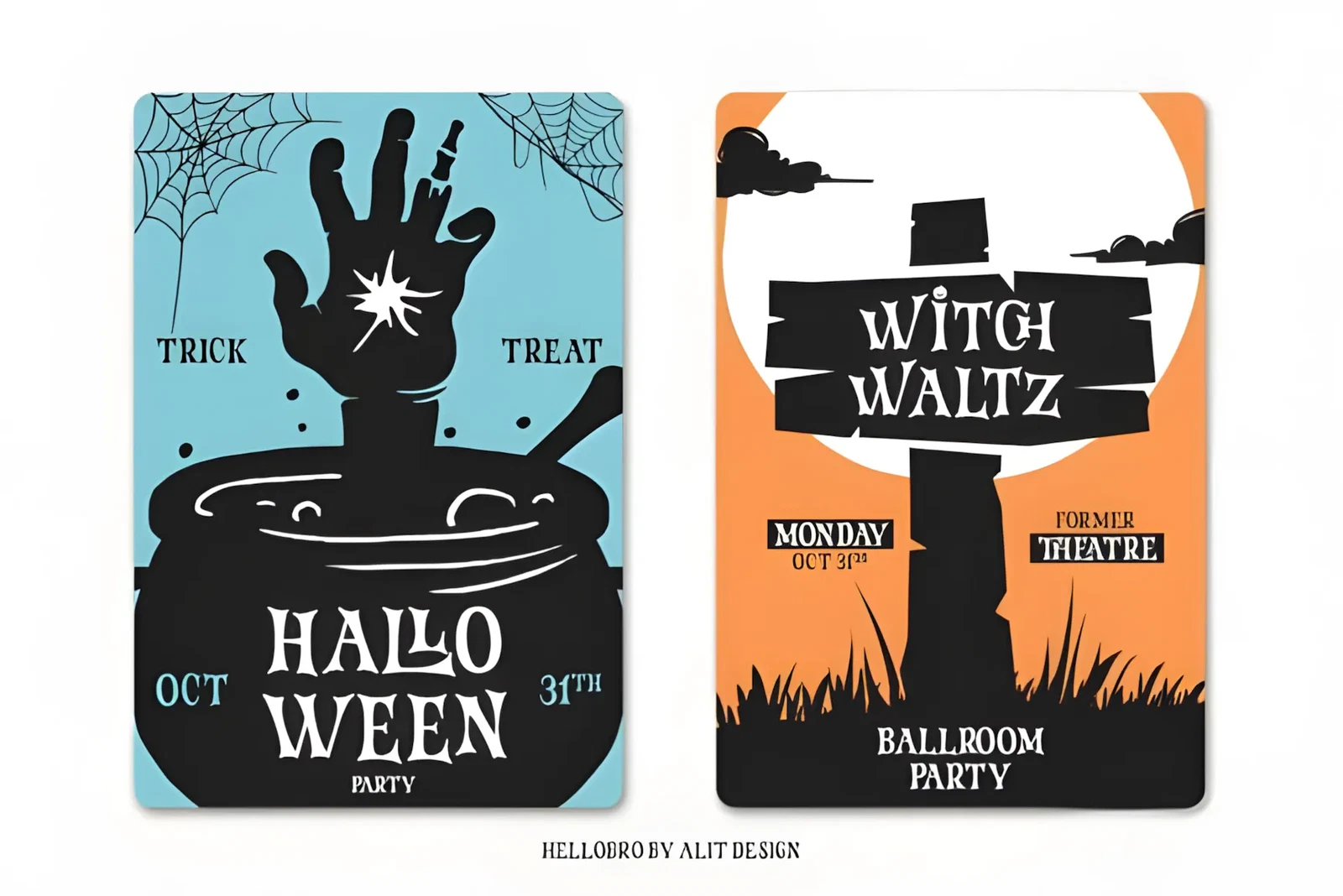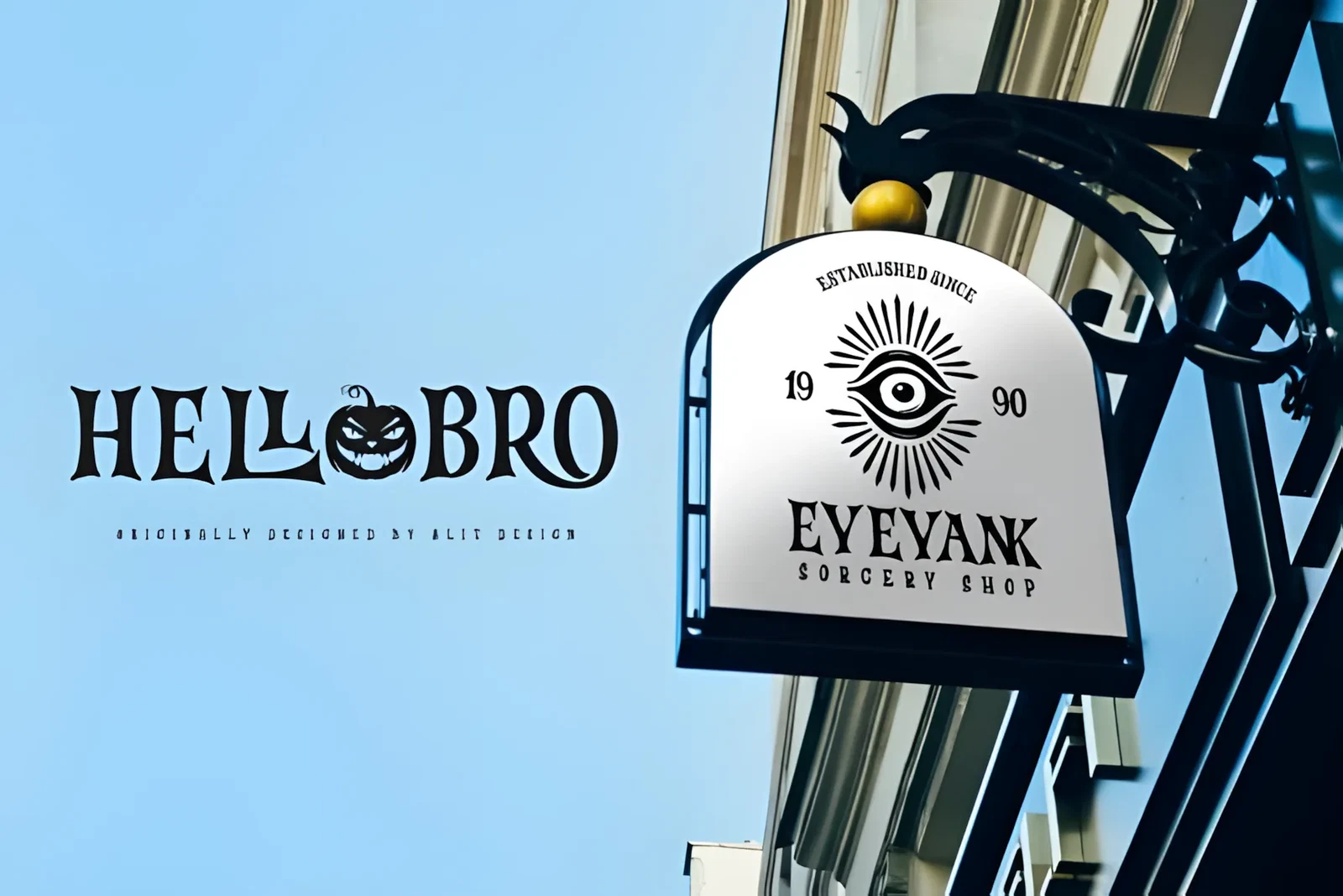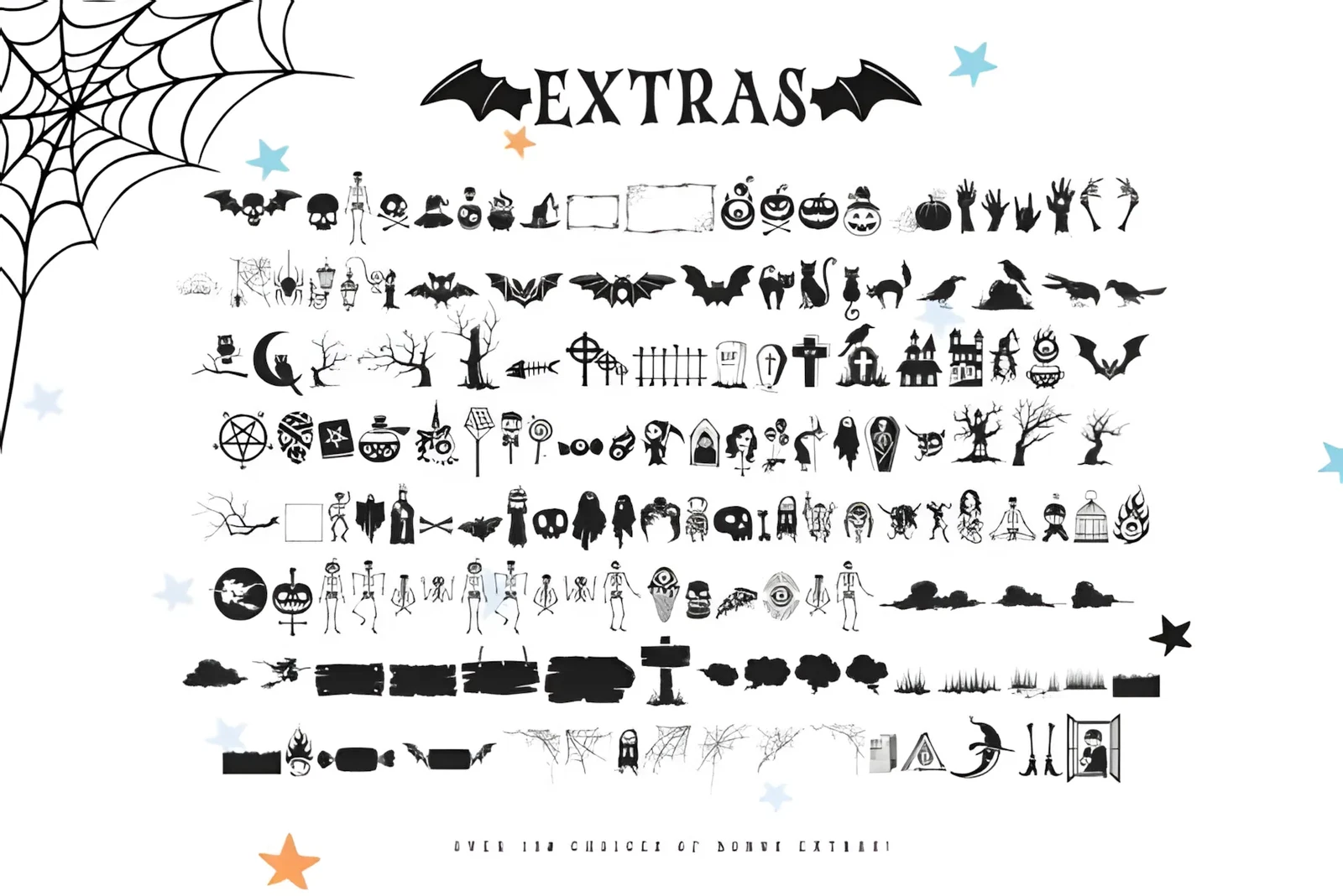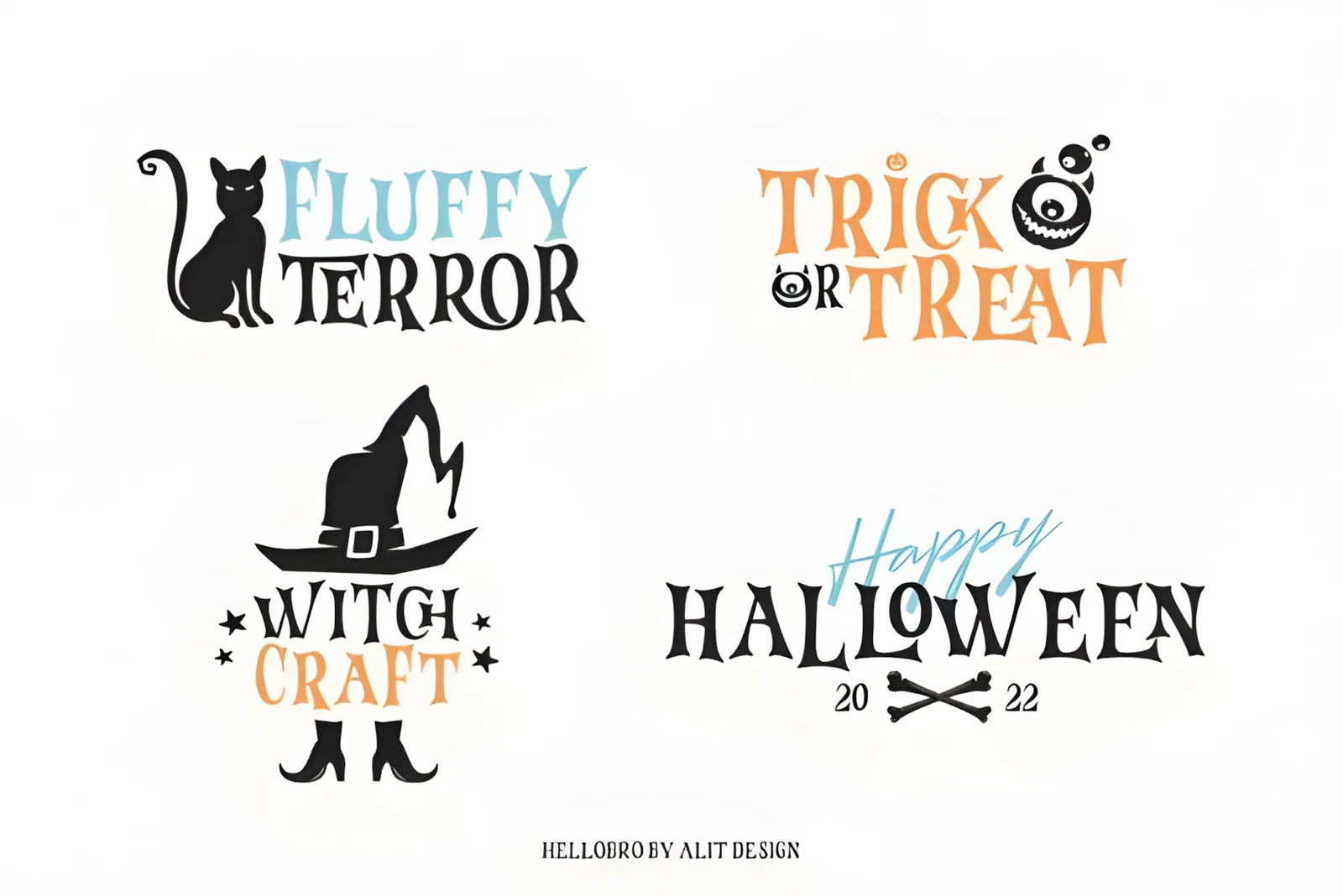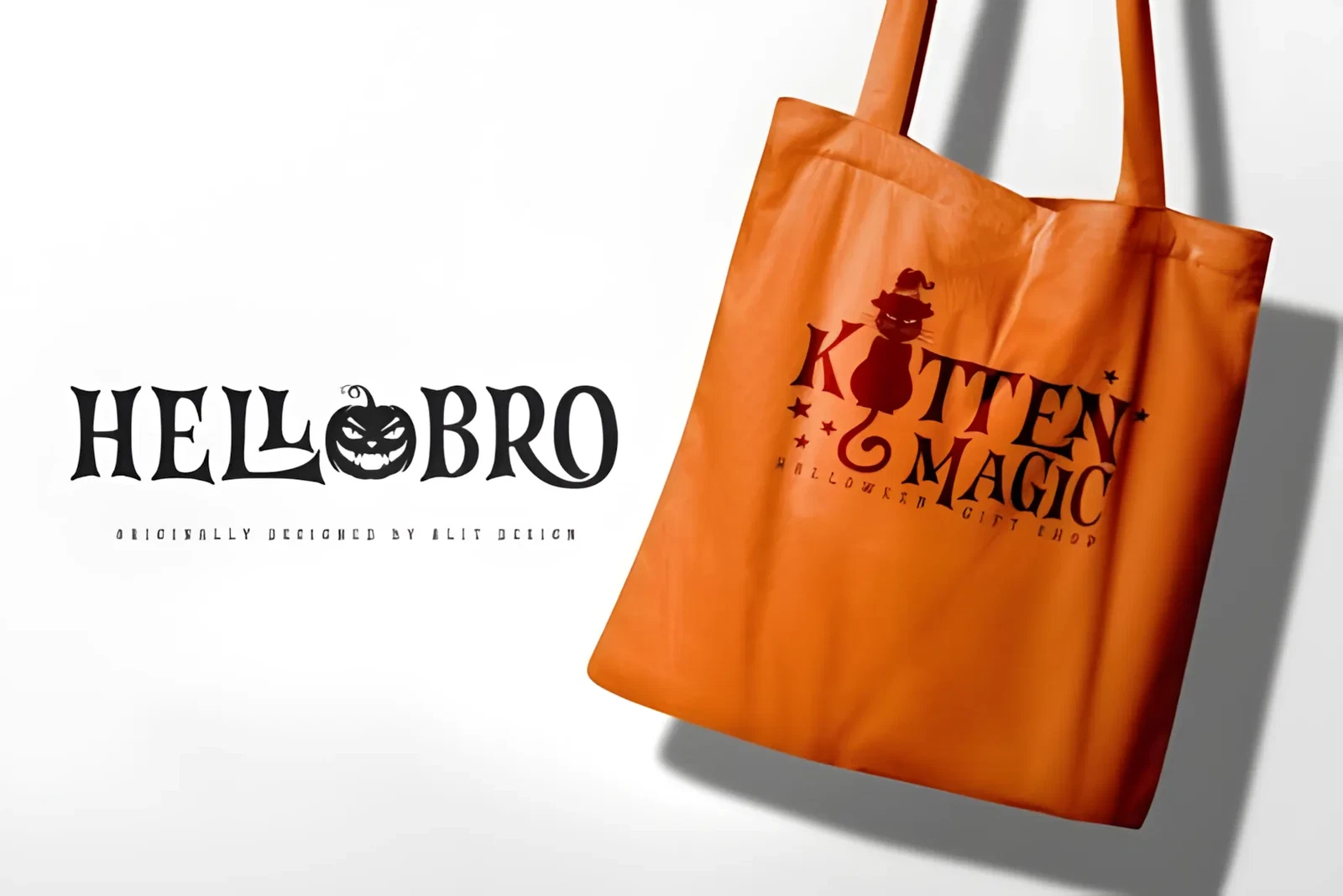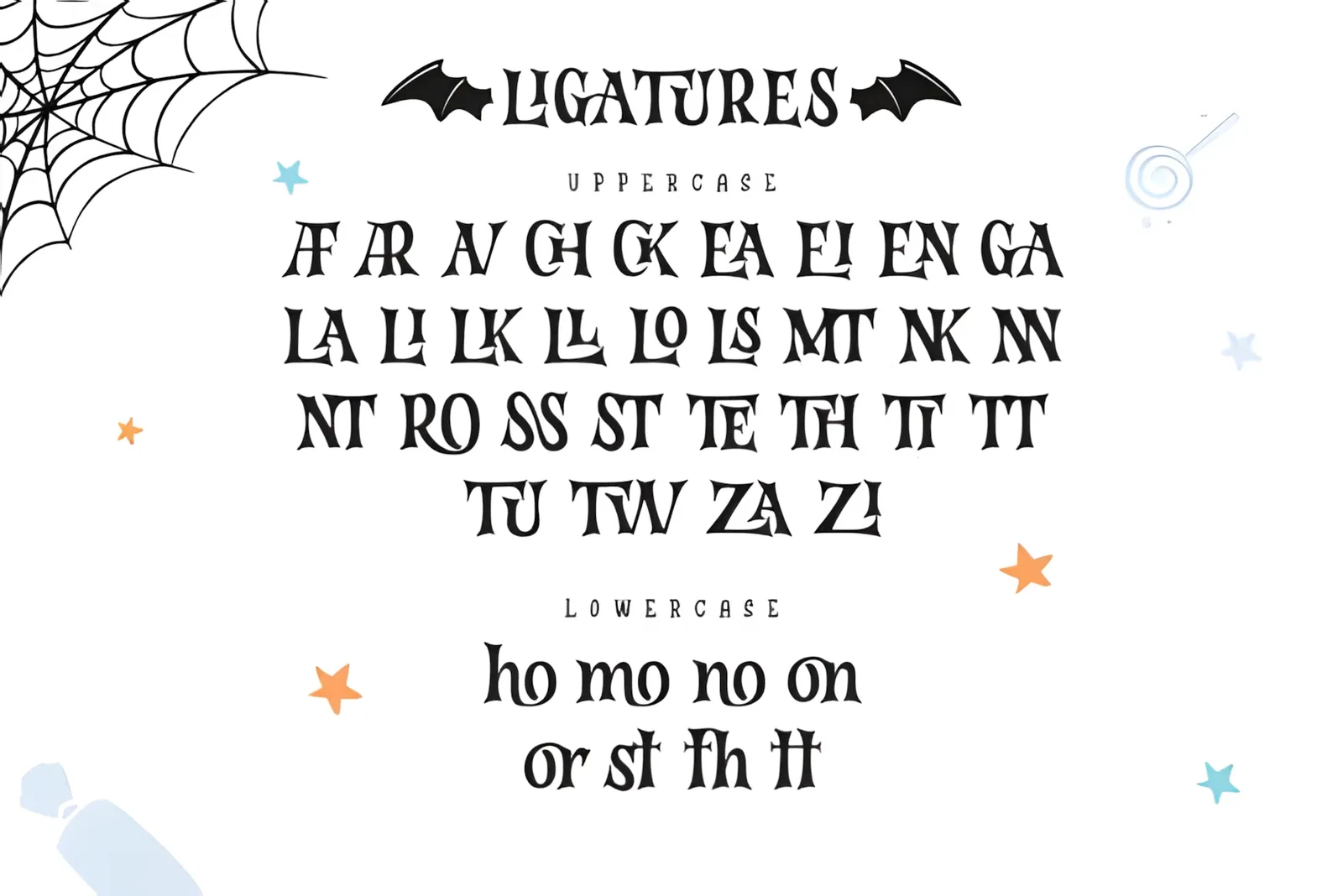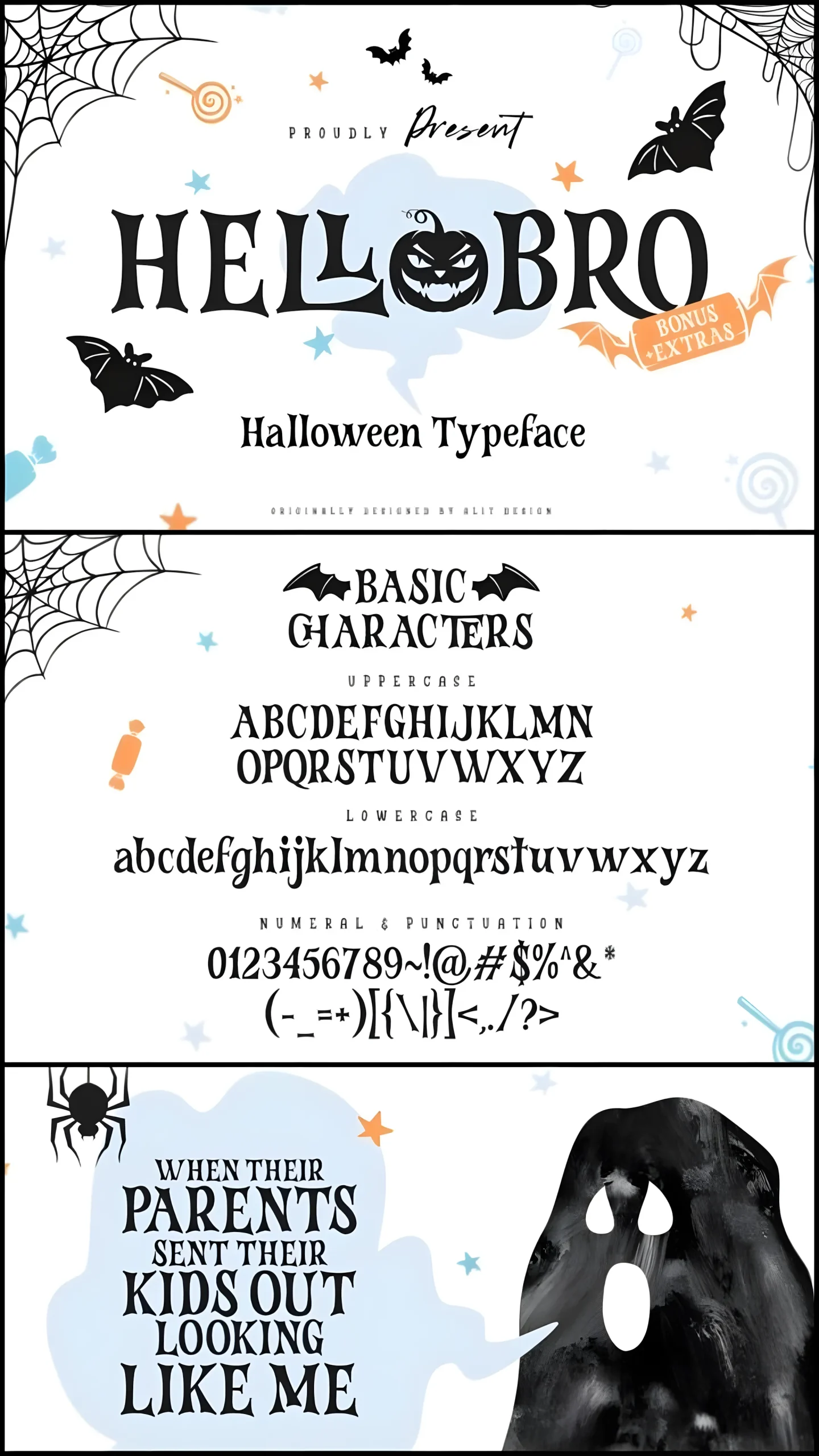
Seasonal fonts often look good only at first glance. Once they are placed into real layouts, many of them become difficult to read or too visually aggressive. Hellobro Font, created by Alit Design, takes a different approach. It is a Halloween display font designed to feel playful, friendly, and festive rather than dark or intimidating.
This typeface was created for Halloween parties, invitations, posters, and seasonal graphics that aim to create a cheerful atmosphere. Instead of relying on sharp horror elements, Hellobro focuses on fun, personality, and visual balance.
Overall Style and Character
Hellobro Font immediately communicates a Halloween mood, but it does so in a light and approachable way. The letterforms are decorative and slightly irregular, giving the font a hand-crafted feel. At the same time, the shapes remain clear and readable, which is essential for practical design use.
The style fits well with themes like celebration, night events, and festive gatherings. Rather than leaning toward gothic or scary visuals, Hellobro feels closer to cartoon-inspired Halloween design. This makes it suitable for a wide audience, including family-friendly events and community celebrations.
Designed for Halloween and Party Themes
According to its official description, Hellobro Font was created specifically for Halloween and festive designs. It works best in projects that need to look fun, eye-catching, and full of character.
Typical use cases include:
- Halloween party posters
- event flyers and banners
- invitations and greeting cards
- seasonal social media graphics
- festive decorations
The font performs best as a display typeface, meaning it is ideal for headlines, titles, and short phrases that set the tone of a design.
Readability and Practical Use
One of the strongest qualities of Hellobro Font is readability. Many Halloween fonts sacrifice clarity for style, but this typeface avoids that issue. The letters are bold enough to stand out, yet structured enough to remain legible even at medium sizes.
This makes the font suitable not only for large posters, but also for:
- digital invitations
- social media posts
- banners and headers
- short promotional text
The font keeps its character without becoming visually overwhelming.
It is also PUA encoded, which means special characters and glyphs can be accessed easily in design software without additional tools.
Emotional Tone and Visual Impression
The emotional tone of Hellobro Font is what truly defines it. Instead of focusing on fear or darkness, the font emphasizes fun and celebration. Keywords associated with its style include:
- playful
- festive
- happy
- party-focused
- cartoon-inspired
This makes the font ideal for designers who want to create Halloween visuals that feel welcoming and energetic rather than intense or frightening.
Where Hellobro Font Works Best
Based on its design and purpose, Hellobro Font is best suited for:
- Halloween party branding
- festive posters and flyers
- invitations and greeting cards
- social media promotions
- crafting and DIY projects
It is not intended for long paragraphs or formal documents, but as a decorative Halloween display font, it performs exactly as expected.
Hellobro Font is a Halloween typeface designed with clarity and personality in mind. It avoids extreme horror styling and instead delivers a playful, festive look that works well across a wide range of seasonal projects.
For designers, event organizers, and creators who need a Halloween font that feels fun, readable, and versatile, Hellobro Font offers a solid and focused solution. It does what it promises: adds character, sets the mood, and keeps designs approachable and engaging.